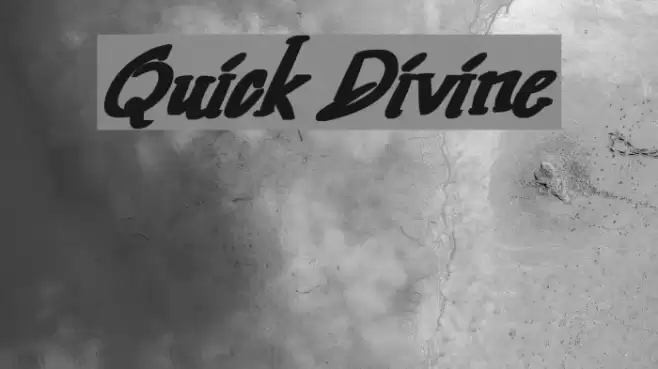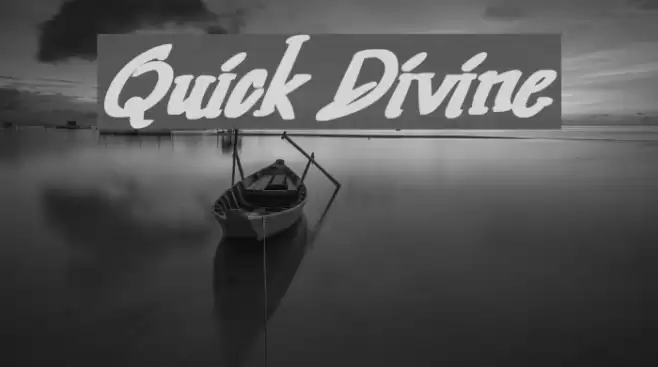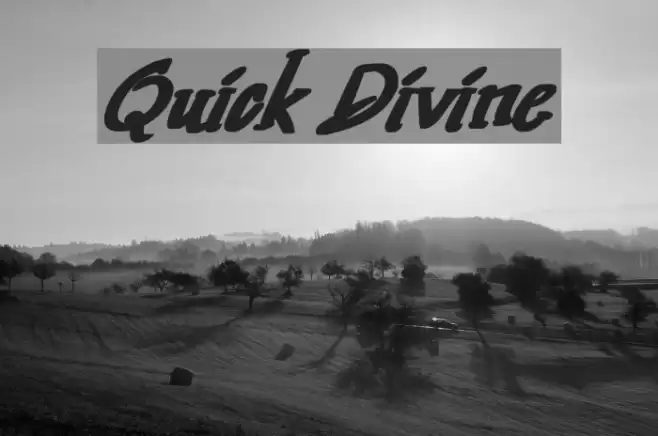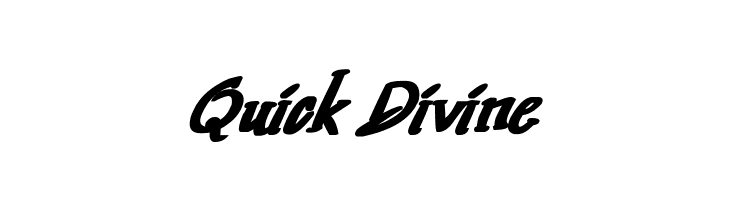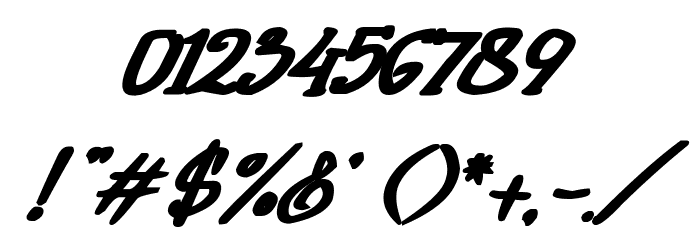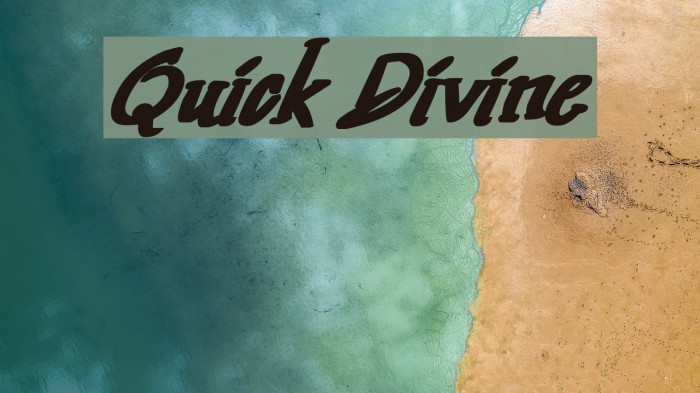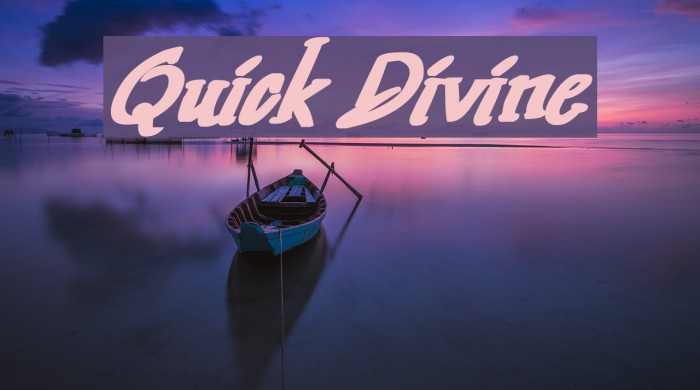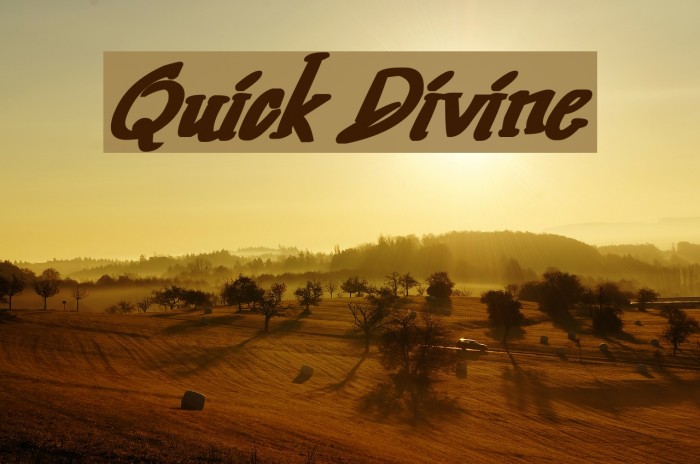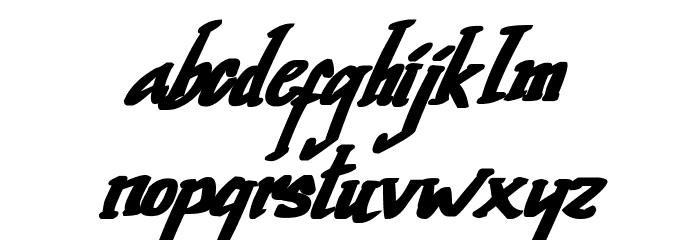
Quick Divine Font
Quick Divine Description
This font features a bold and dynamic script style with a strong presence. The letters are slanted, giving a sense of motion and energy. The strokes are thick and consistent, providing a uniform appearance across all characters. The uppercase letters are particularly striking, with a slightly exaggerated flair that adds to the font's expressive nature. The lowercase letters maintain the same energetic style, with smooth curves and sharp angles. Numbers and special characters are designed to match the overall aesthetic, ensuring a cohesive look. This font is ideal for projects that require a bold and impactful statement.
A bold, dynamic script font with a strong, energetic presence from Uncategorized fonts.
- Proposed Projects: Ideal for branding, posters, and headlines where a bold statement is needed.